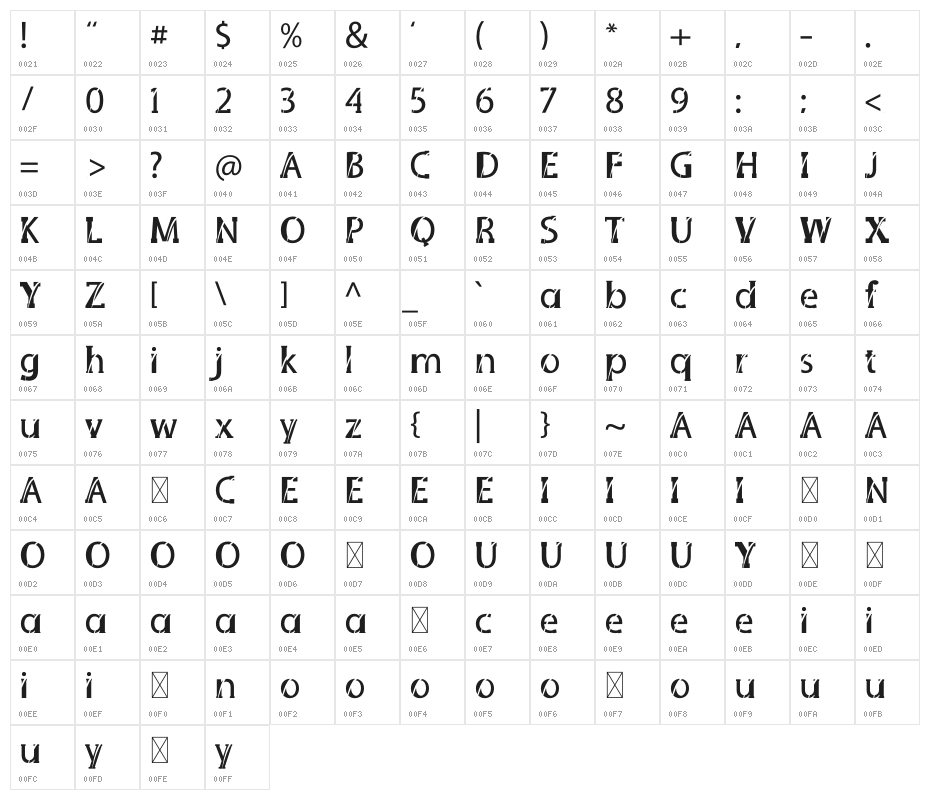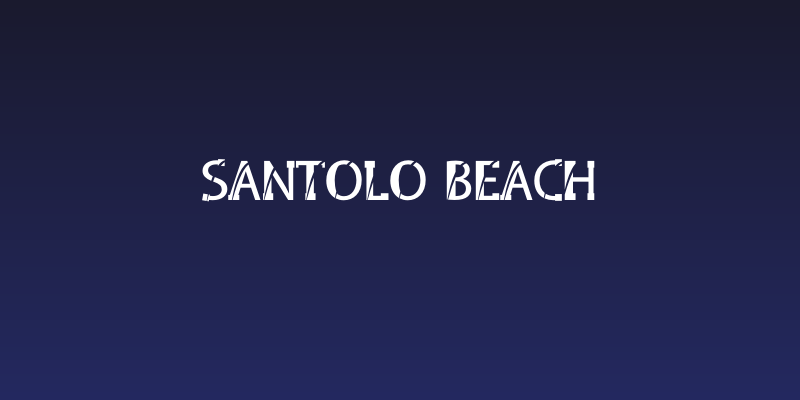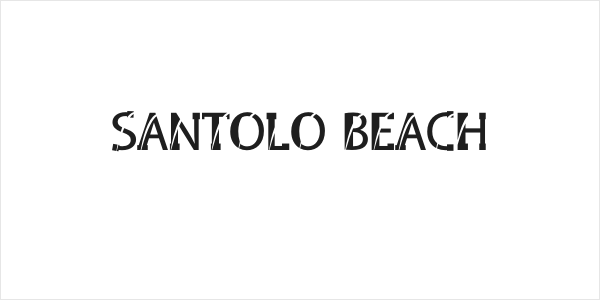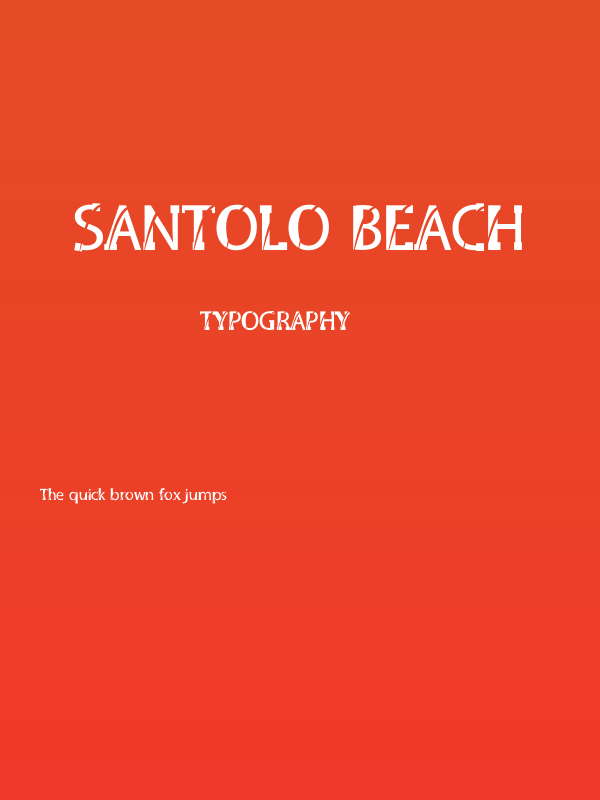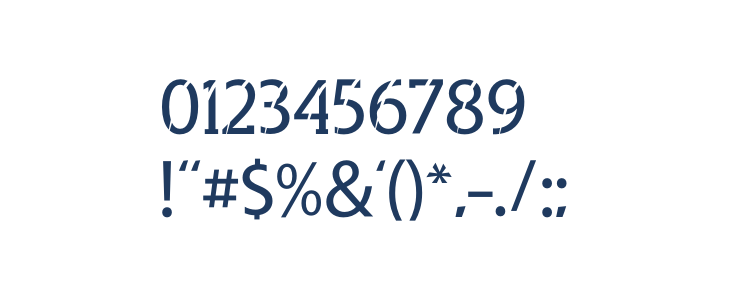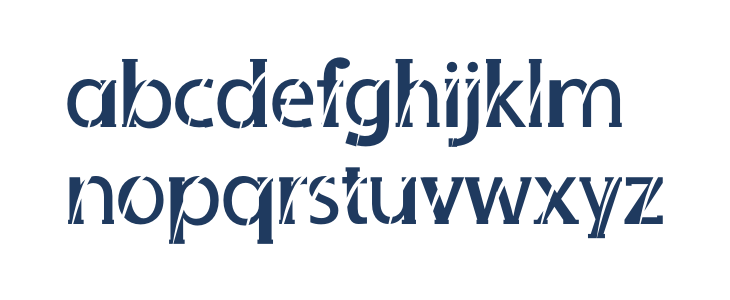
SANTOLO BEACH Font
SANTOLO BEACH Description
This font features a unique and modern design with a high contrast between thick and thin strokes. The characters have a distinct geometric style with sharp angles and clean lines, giving it a futuristic and edgy appearance. The uppercase and lowercase letters maintain a consistent style, while the numbers and special characters complement the overall aesthetic. The font's boldness and distinctiveness make it stand out, suitable for creative and impactful designs.